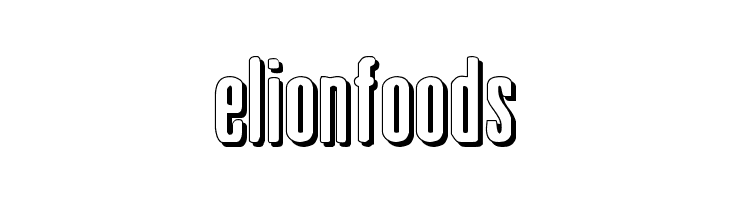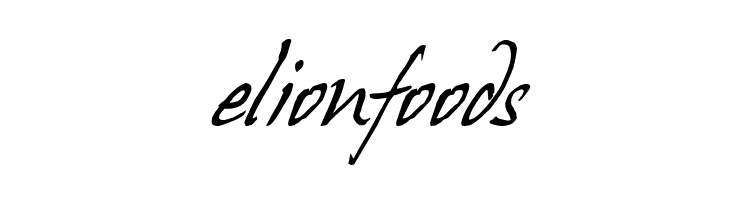
A bold, geometric font with a modern and impactful style.
A modern, geometric font with tall, narrow characters and clean lines.
A bold, shadowed font with a three-dimensional effect.
A bold, vintage-inspired serif font with thick strokes and a compact design.
A vintage serif font with bold, elegant characters and unique flourishes.
A bold, classic serif font with strong, elegant strokes.
A classic serif font with an elegant oblique slant and moderate contrast.
A bold, oblique serif font with strong strokes and a classic, elegant style.
A classic serif font with elegant, bold uppercase and consistent lowercase characters.
A hand-drawn, sketch-like font with bold outlines and artistic flair.
A classic serif font with a condensed width and medium contrast, offering elegance and readability.
A robust slab serif font with strong, squared serifs and clear readability.
A narrow slab serif font with bold, squared serifs and modern appeal.
An oblique slab serif font with bold, dynamic characters and strong serifs.
A hand-drawn, rustic font with uneven strokes and a whimsical style.
A bold, structured font with a modern yet traditional serif influence.
A bold, italicized serif font with strong strokes and elegant curves.
A fluid, italicized handwritten font with a dynamic and cohesive style.
A fluid and expressive handwritten cursive font.
A dynamic, italic handwritten font with flowing strokes and expressive style.
A decorative, hand-drawn font with swirling, chaotic lines and varying stroke thickness.
A playful, handwritten font with dynamic strokes and a casual style.
A playful, bold script font with an outlined, interconnected design.
A bold, handwritten font with a casual and expressive style.